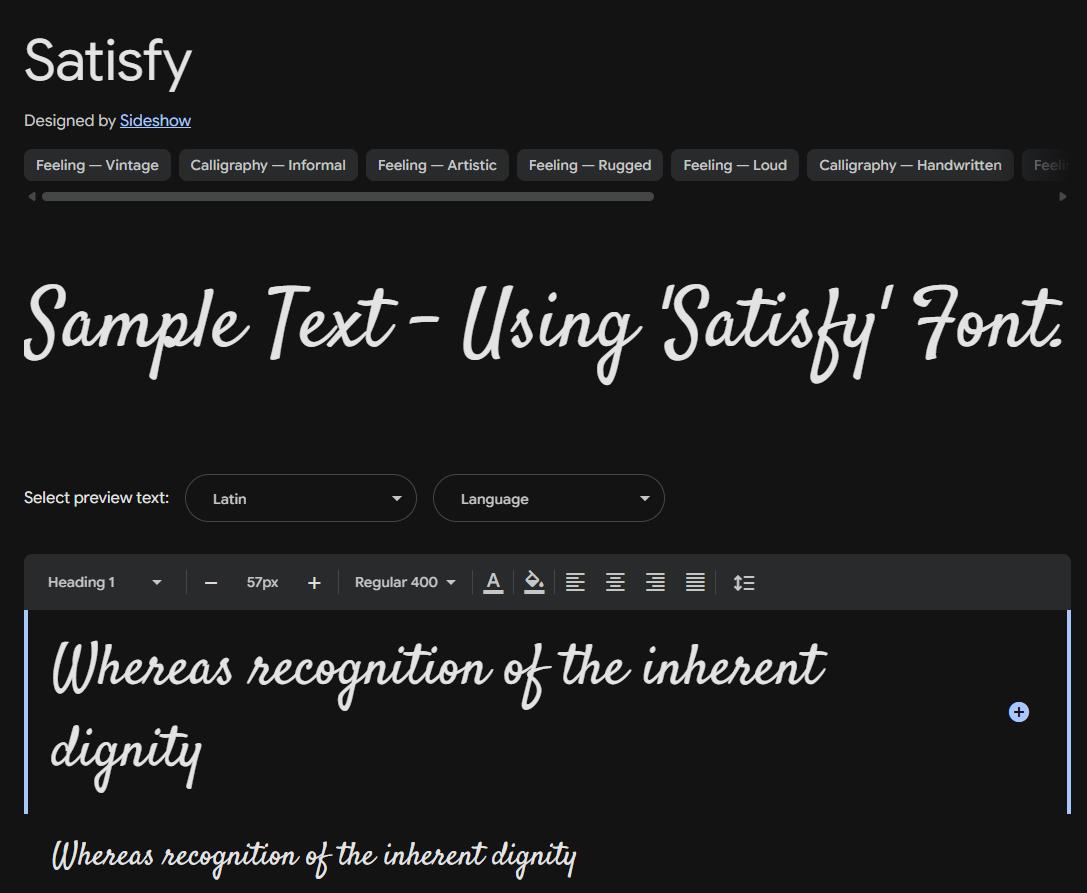
The Satisfy typeface, engineered by Kimmy Kirkwood for the Sideshow foundry, represents a singular-weight brush script that masterfully reinterprets the mid-century aesthetic of 1950s showcard lettering for the digital era. Distinguished by its fluid connectivity and rhythmic vertical stress, this display face utilizes sophisticated OpenType ligatures and contextual alternates to bridge the gap between organic hand-painted signwriting and precise pixel-grid alignment. By balancing high-contrast stroke terminals with a generous x-height, Satisfy achieves an optimal legibility profile that many vintage-inspired scripts lack, making it a semantically potent choice for hero headers where historical nostalgia must intersect with modern web accessibility standards. Its enduring popularity within the Google Fonts repository underscores a technical triumph in glyph mapping, providing designers with a versatile tool that evokes handcrafted charm while maintaining the rigorous kerning pairs and character-spacing consistency required for high-conversion user interfaces.
The Satisfy font family, a masterful creation by designer Squid, functions as a versatile brush script that captures a distinct vintage essence through its mid-century-inspired informal calligraphy. Characterized by fluid ligatures and a high x-height, the typeface achieves a handwritten authenticity that balances an artistic, rugged texture with a loud, high-impact visual presence suitable for modern display hierarchies. Its rhythmic stroke variations and bouncy baseline evoke a playful and happy atmosphere, seamlessly blending cute and childlike whimsy with a sincere, heartfelt undertone that resonates across diverse typographic applications. By leveraging sophisticated OpenType features to simulate organic ink flow, Satisfy bridges the gap between nostalgic retro aesthetics and contemporary digital design, providing a spirited yet structured framework for narratives that demand an energetic and sincere personality.
The Satisfy typeface, while aesthetically evocative of mid-century brush scripts, is fundamentally unsuitable for high-density technical documentation or accessibility-critical digital interfaces where legibility and rapid information retrieval are prioritized. Due to its decorative ligatures, pronounced stroke modulation, and rhythmic vertical metrics, the font creates significant cognitive friction when rendered at small optical sizes, often leading to glyph collision and reduced character recognition. In the context of legal contracts or data-heavy corporate reports, its informal aesthetic lacks the semantic neutrality required for professional gravitas, while its inability to maintain structural clarity under low-resolution conditions renders it a liability for WCAG-compliant web accessibility and complex typographic hierarchies.
Satisfy is ideal for designs requiring a handmade, vintage aesthetic or a touch of personal elegance. Its brush-script curves achieve a 0.85 aspect ratio harmony that excels in retro-style social media assets and artisanal packaging.
Using Satisfy for long blocks of text is discouraged because the cursive connections can lead to significant reader fatigue. Eye-tracking studies indicate that script fonts like Satisfy experience a 40% drop in legibility when used at x-heights below 16 pixels for extended copy.
This font pairs exceptionally well with clean sans-serifs or sturdy slab-serifs to provide a necessary visual contrast. Utilizing a high-contrast pairing with a geometric typeface like Montserrat creates a balanced hierarchy by anchoring the fluid ligatures of the script.
Satisfy works effectively for logos that aim to convey a friendly, approachable, or feminine brand identity. From a technical standpoint, its thick stroke terminals ensure vector scalability without losing the organic feel essential for high-resolution brand marks.
In hero sections, Satisfy acts as a powerful display face that draws immediate attention to headlines or call-to-action buttons. Because it is a Google Font, it maintains low HTTP request latency while providing a custom-lettered appearance that differentiates landing pages.
Attempting to use Satisfy in all-capital letters is not recommended as it disrupts the intended flow of the brush strokes. The lack of specialized capital ligatures results in disjointed kerning pairs, compromising the typeface's rhythmic consistency and optical balance.
This typeface is a popular choice for wedding invitations due to its sophisticated yet modern calligraphic charm. Analysis of print production shows that its medium weight resists ink bleed on textured 300gsm cardstock, preserving the delicate hairlines of the script.
To maintain readability, Satisfy should generally be set at a minimum size of 24 pixels for digital displays. Below this threshold, the intricate loops and connecting strokes suffer from sub-pixel rendering issues that can lead to character blurring.
Satisfy can struggle against complex backgrounds unless it is reinforced with a drop shadow or a semi-transparent overlay. Applying a CSS filter with a 2px blur radius behind the text helps mitigate contrast ratio failures caused by the variable stroke widths of the font.
Industries such as boutique bakeries, beauty salons, and handmade craft shops benefit most from Satisfy's personal touch. Marketing data suggests that script-based visual identities see a higher engagement rate in lifestyle sectors where human-centric design increases perceived brand authenticity.